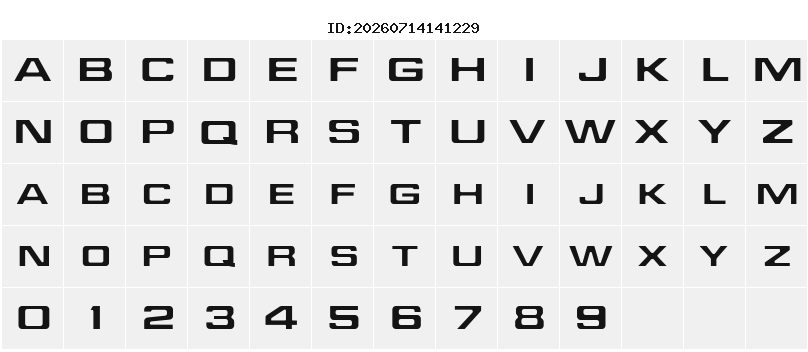
• Font Name: Jefferies
• Font Style: Extended
• Font ID: Macromedia Fontographer 4.1.3 Jefferies Extended
• Full Font Name: Jefferies Extended
• Copyright: Designed by Jeff Yerkey (www.trek5.com) in honor of Matt Jefferies and Michael Okuda.
About Jefferies.ttf
Jefferies.ttf is a modern, elegant sans-serif font designed for ultimate readability and visual harmony. Perfect for branding, headlines, web design, and print materials.